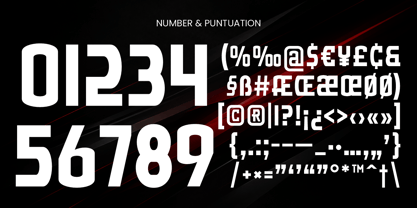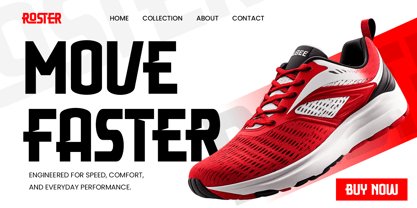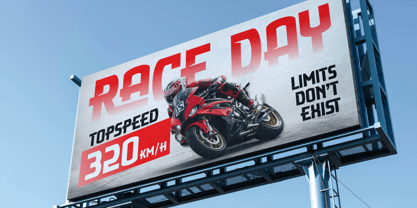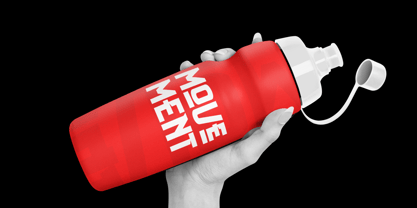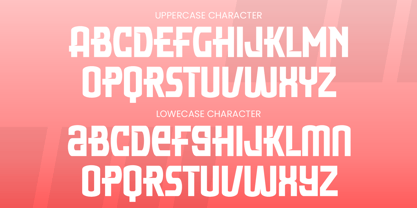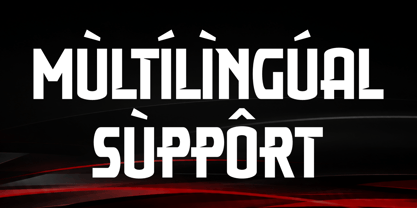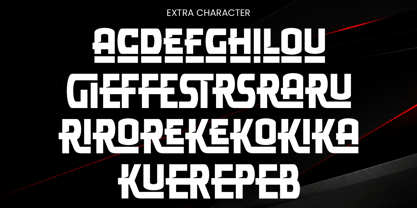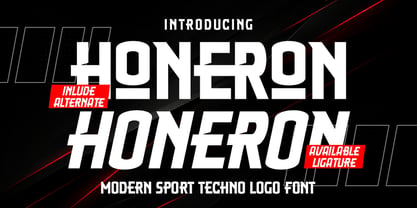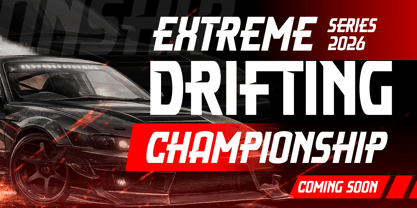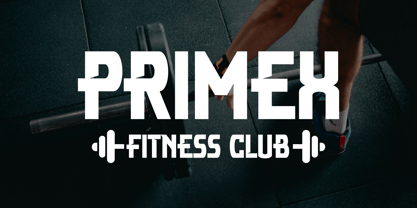
Honeron
Honeron is a bold modern sport techno display typeface designed to bring a powerful, dynamic, and futuristic character to your designs. Its strong geometric construction, sharp angles, and compact proportions create an energetic visual identity that commands attention.
Designed with a distinctive athletic and technological aesthetic, Honeron also includes alternate characters and ligatures, giving you additional options to create more distinctive and customized typography. Whether used for a bold logo, jersey design, racing identity, or promotional headline, Honeron delivers a strong and competitive visual presence.